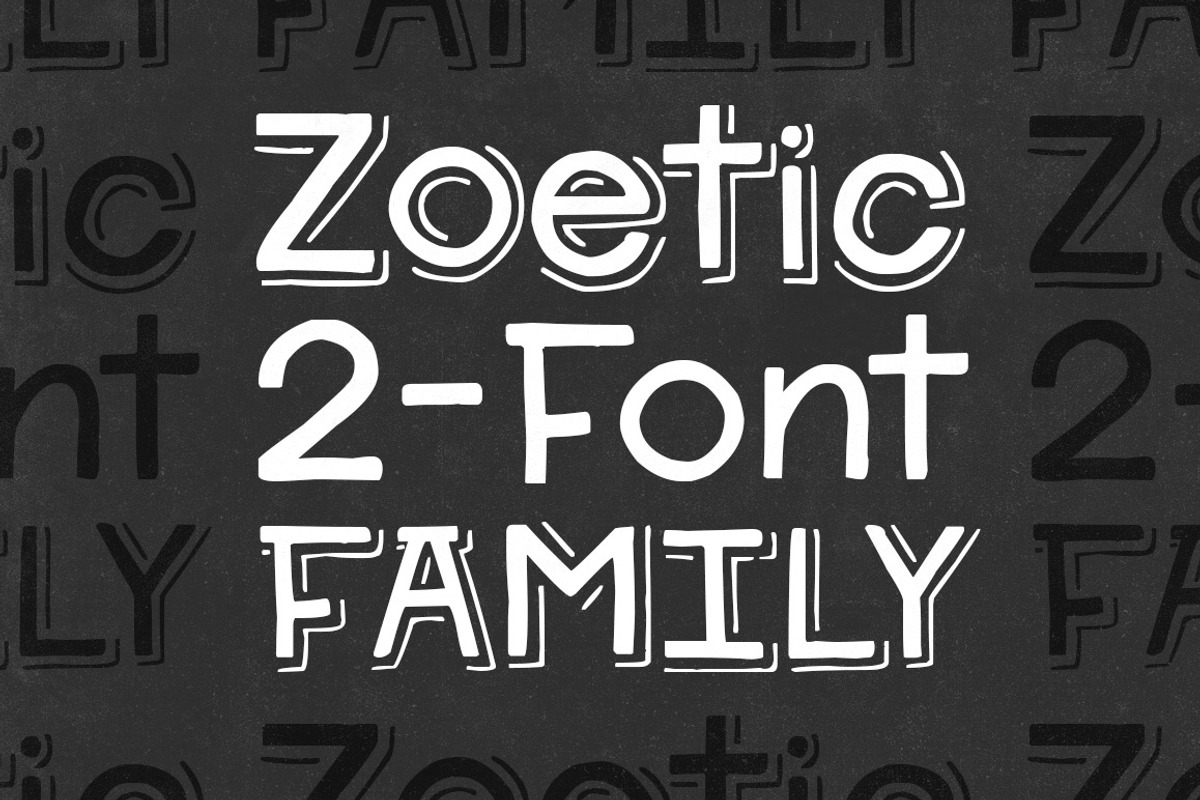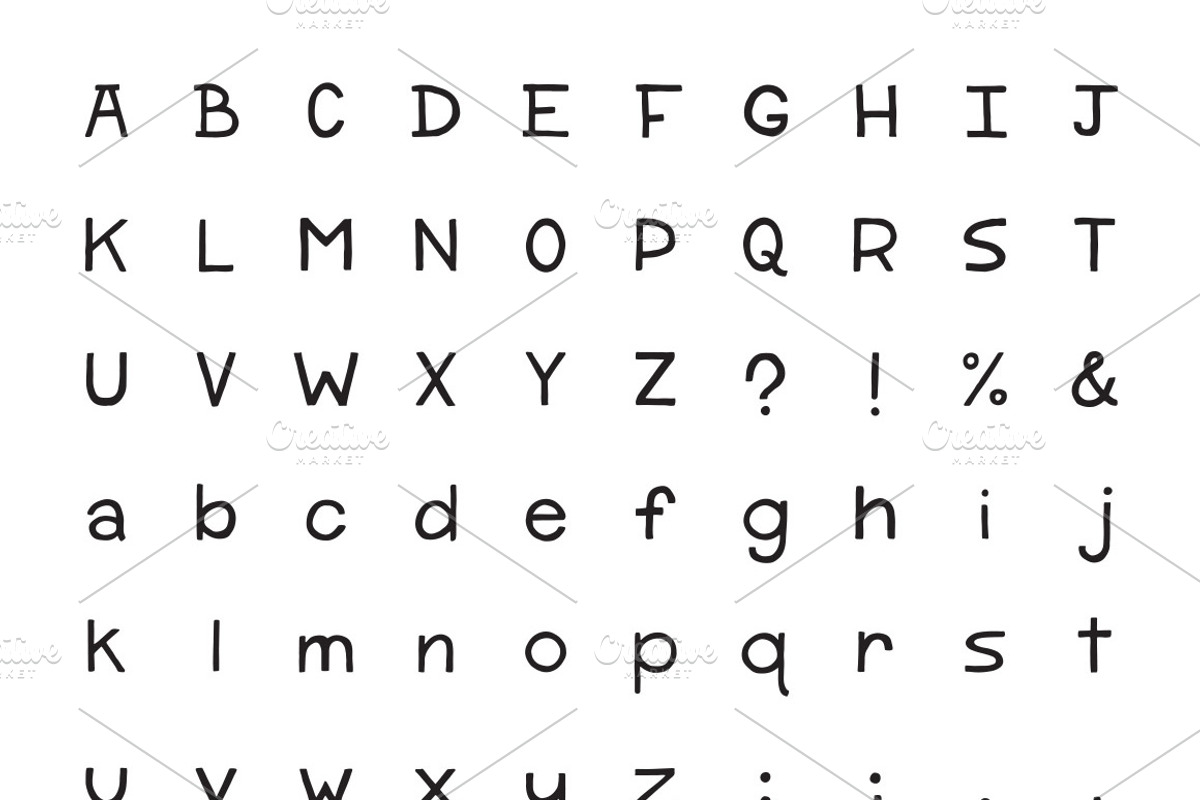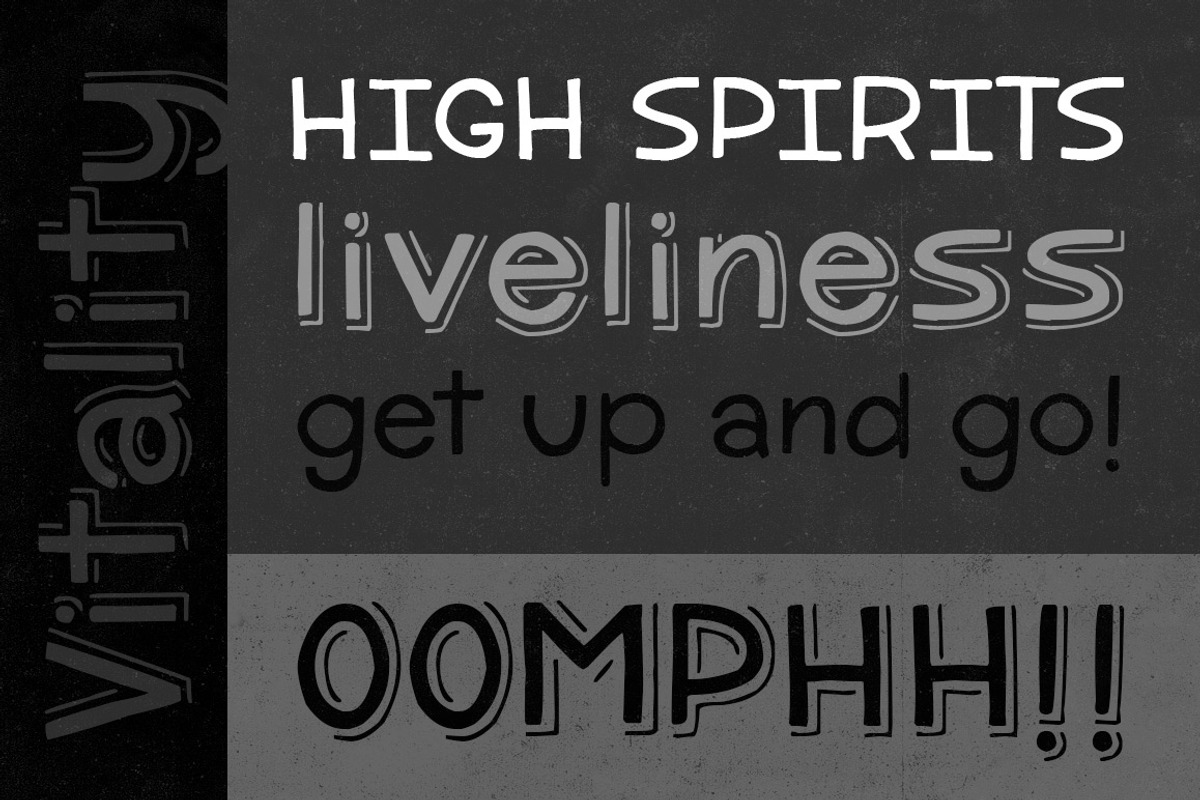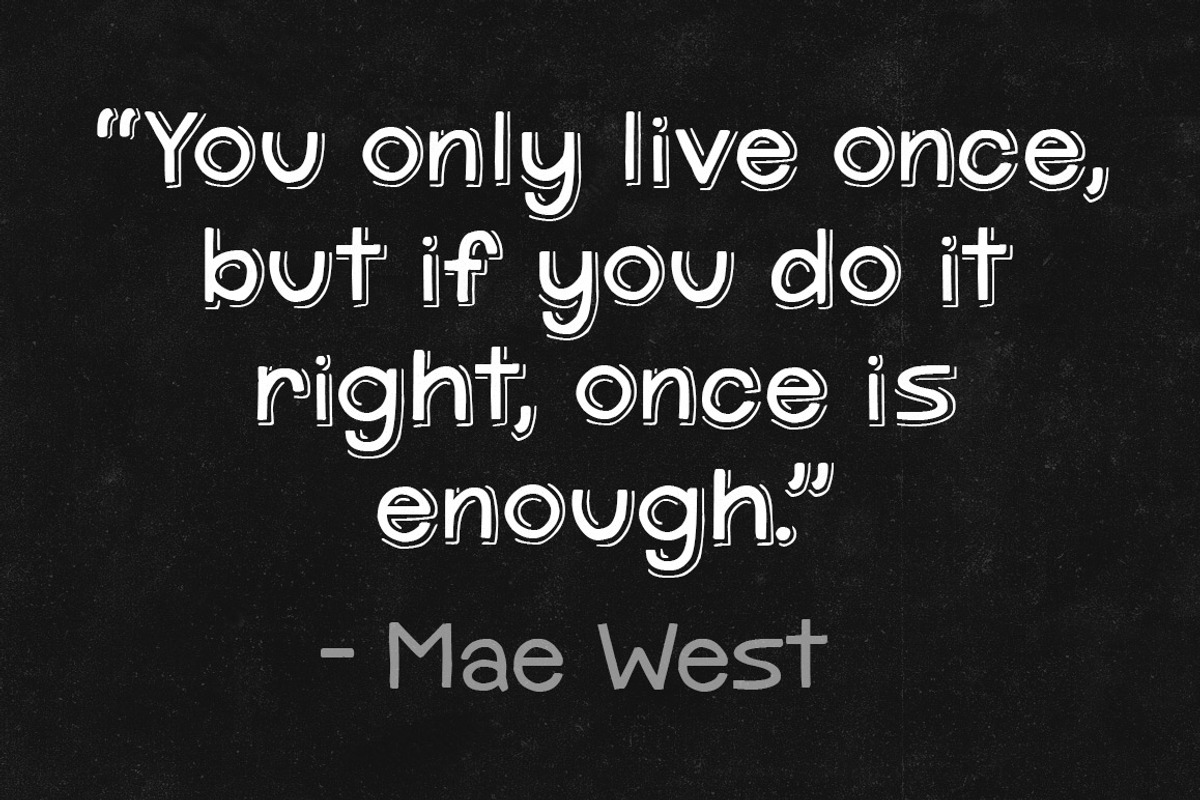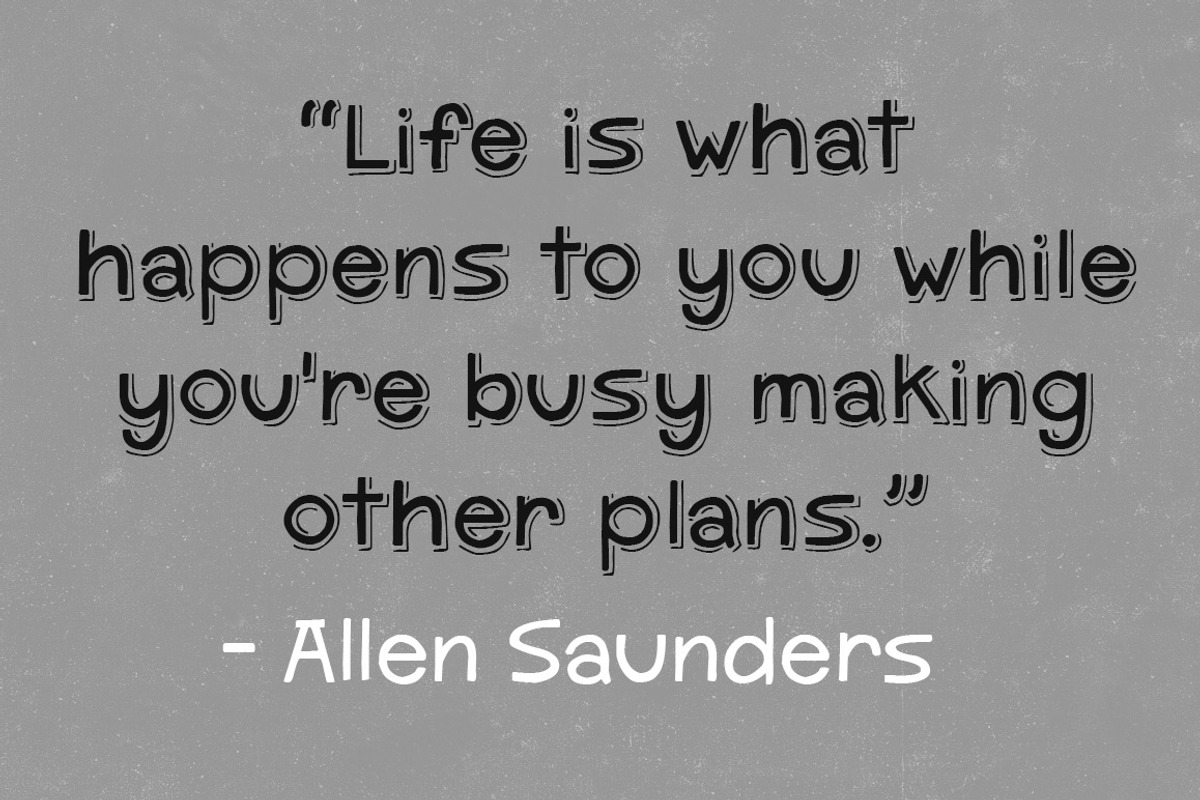
Zoetic 2-Font Family
Zoetic 2-Font Family by Satchel & Sage is a font selected for branding, posters, packaging, typography.
- Zoetic Regular
- Zoetic Shadow Regular
Why Zoetic 2-Font Family is worth a look
Zoetic 2-Font Family by Satchel & Sage fits naturally into Branding, posters, packaging, typography.